Fonts are a double-edged sword: they carry the possibility to literally write out texts as well as to express the meaning behind the texts through the font's style.
Regardless of your job role, using fonts to your advantage can elevate the delivery of the message you're communicating.
In this article, we'd like to focus on hand-lettered fonts.
To start off, hand-lettered fonts need their space in order to be legible and, as a result, work best in larger sizes and in headlines as opposed to body text.
On the other hand, the strength of hand-lettered fonts lies in relaying the underlying meaning of written text through a visually heightened approach.
In the interest of helping you find the ideal hand-lettered font for your brand, we've created a list of over 100 fonts to consider.
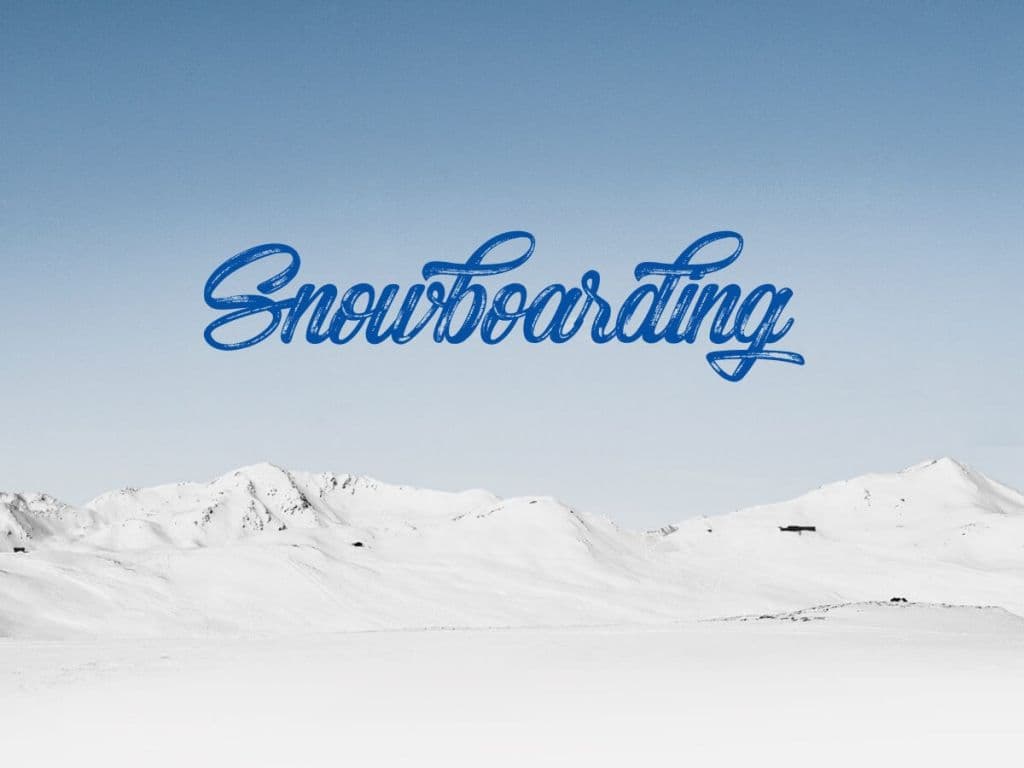
This curly stroked, handwritten brush font has a unique and dynamic personality. Snowboarding is modern and cool, and it can help you make your message pop and matter.
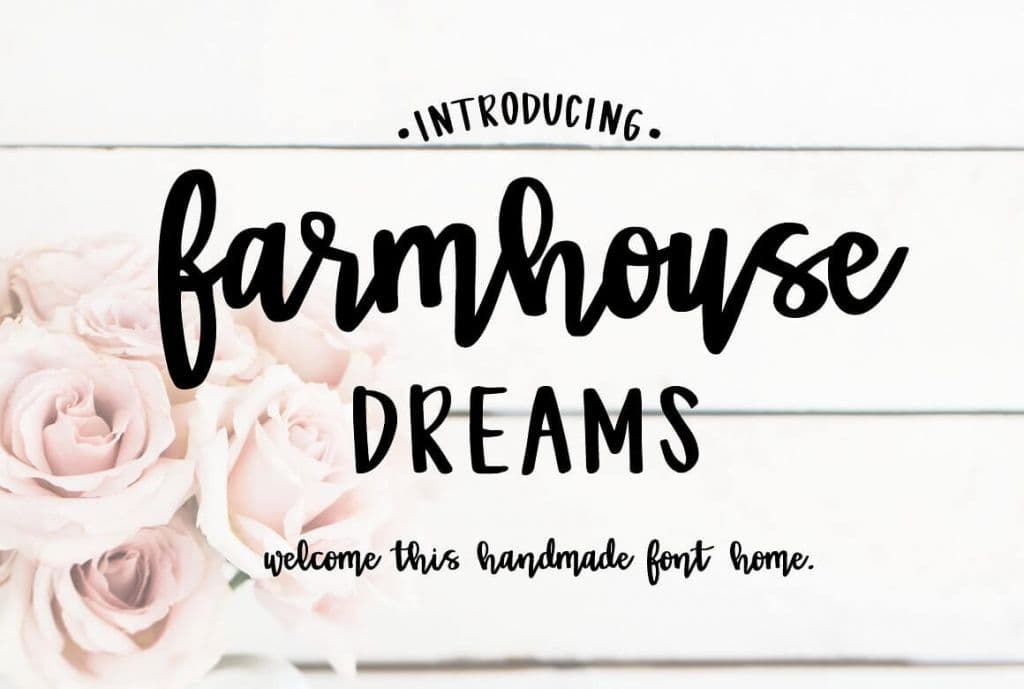
This is a beautiful hand-lettered brush font that can successfully add warmth and friendliness to your marketing materials. It was inspired by the designer's love for hand-lettering, southern charm, and her dream to one day own a farmhouse.
Its uneven lettering size and spontaneous strokes imitate real handwriting and build a cozy, familiar atmosphere.
This font comes as a duo pack with both lowercase and uppercase versions. You can play with both of them to create a timeless feel.
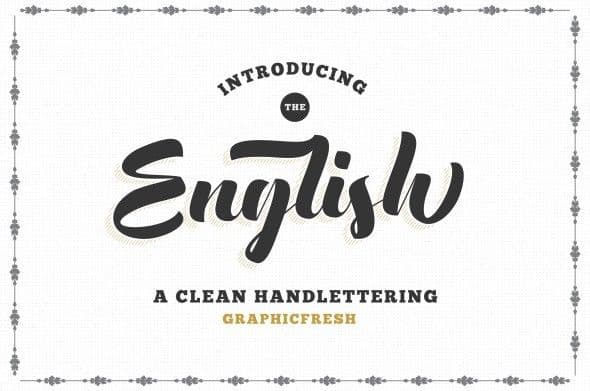
This clean hand lettering font will add a vintage touch to your advertising materials. The pack comes with a hand-lettering font and a clean uppercase one that completes each other. You can use it for outstanding headings or for your logo.
Either way, it will convey a sense of distinctiveness.
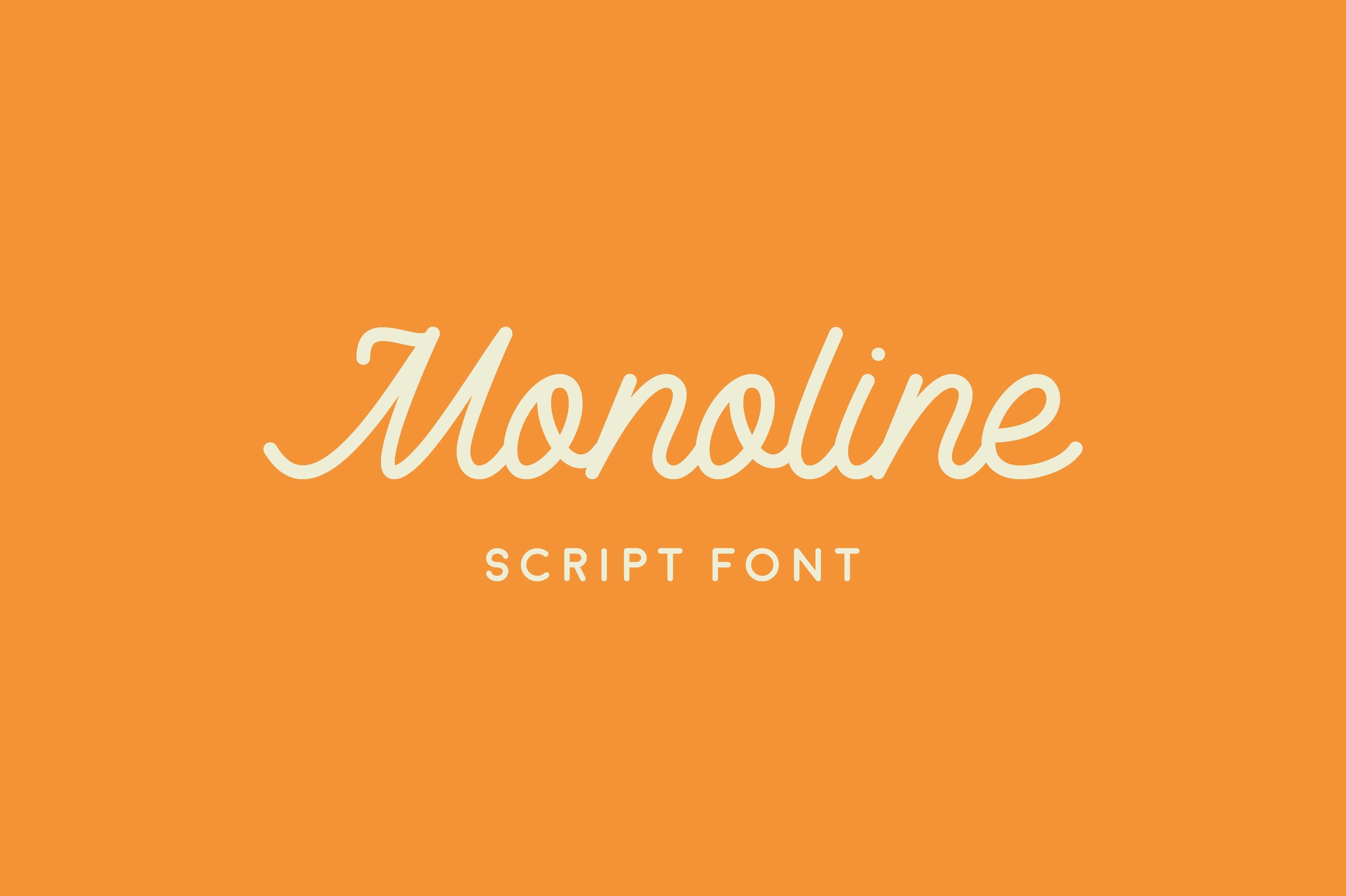
Each of Castellia's letters has been crafted to convey friendliness and positivity. With a moderate brush width and an elegant vibe, this font is great for weddings, anniversaries, women's, and children's brands.
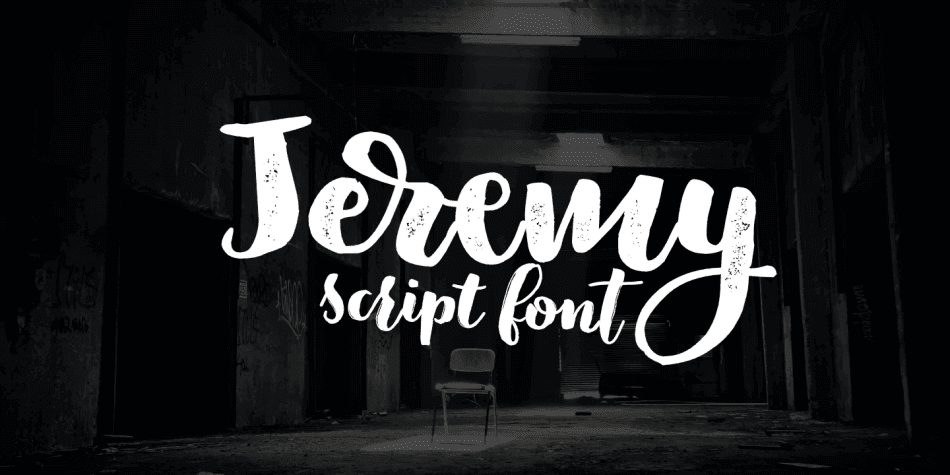
Jeremy is a playful and modern handwritten brush script that enables you to create a positive and cheerful experience for your audience. Jeremy allows multiple ways to build your message, as every lowercase comes in three variations.
The thick brush lettering ensures your text will get noticed. Though handwritten, it is exceptionally legible, and it's perfect for headlines or as a banner font.
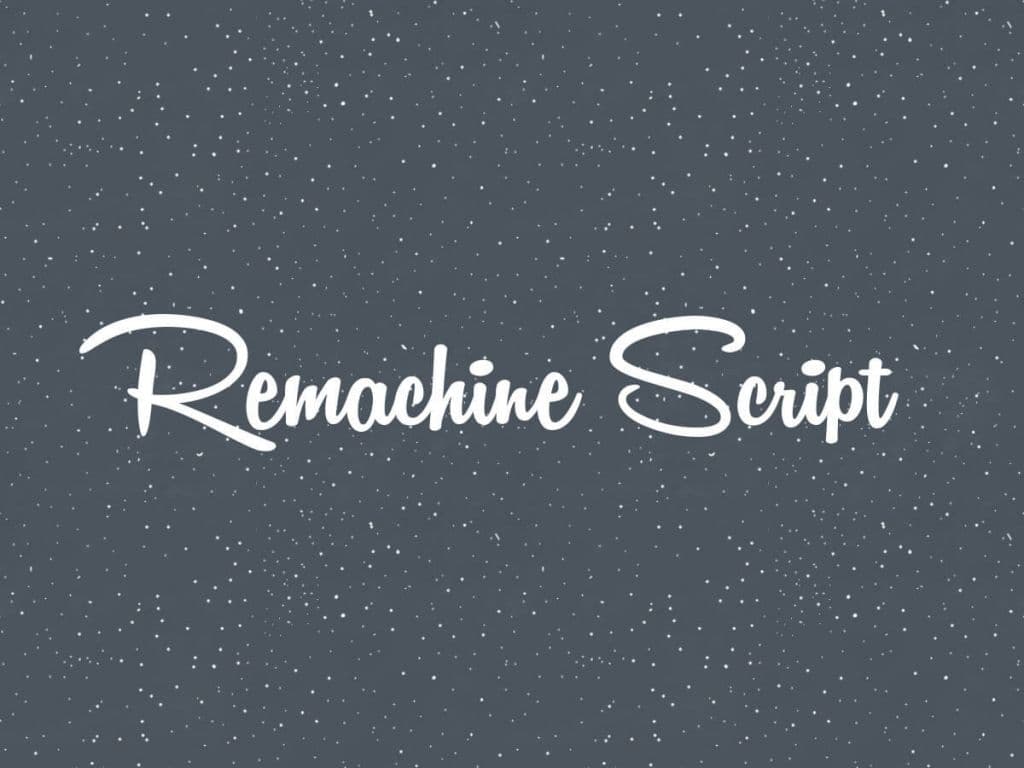
This upright script is perfectly readable for both online and offline media. It is neat and clear and pops. The superbly drawn uppercases will grab anyone's attention and ensure your message gets read.
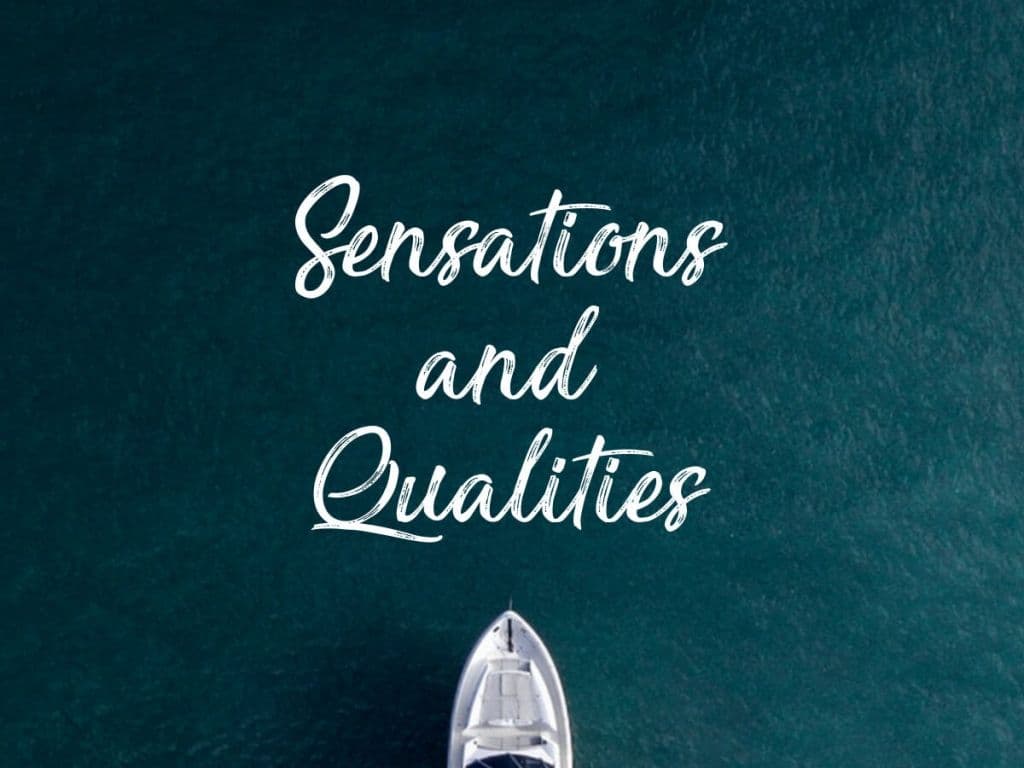
This simple and clear hand lettering font will enliven any design. With fluid strokes and elegant uppercases, Sensations & Qualities will help you stylishly deliver your message, and you can rest assured you'll make a great impression.
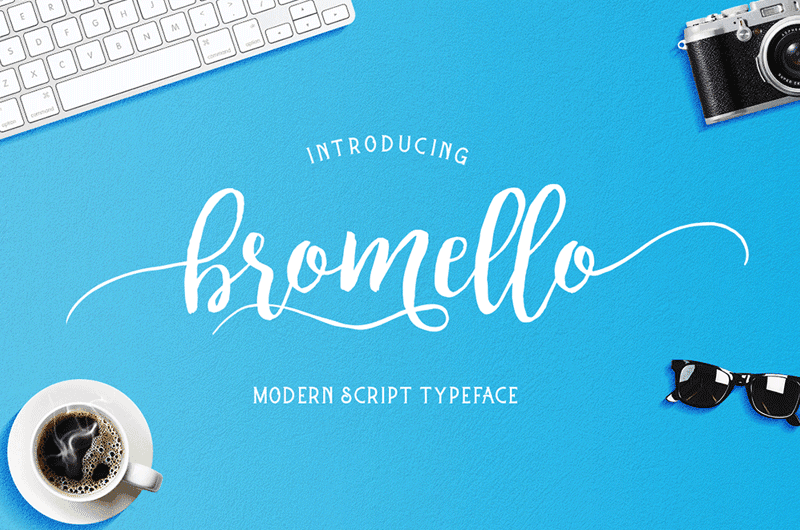
Bromello's effervescent personality will help you create outstanding designs and successfully communicate your brand's message.
With modern and playful letters, this font is ideally suited for children's and women's brands.
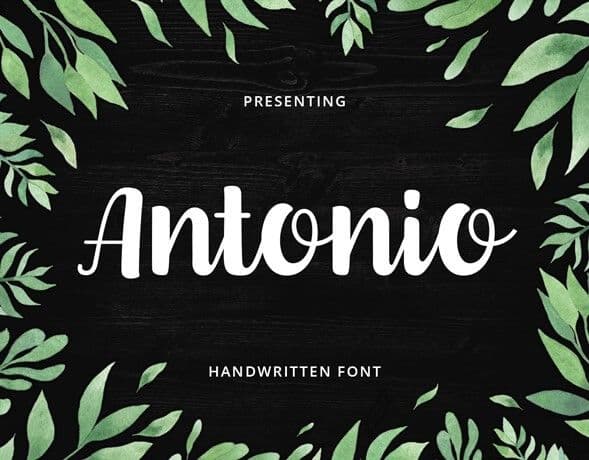
This bold handwritten font works great for headlines and logos. The thick brush is a sure win when it comes to attention-grabbing, while the playful swirls deliver a positive experience.
This classy calligraphy font is excellent for luxury brands, wedding invitations, and other special anniversaries.
It is reminiscent of that 19th-century aristocratic life, thanks to its thin and swirly uppercases, and it can provide your designs with a touch of class too.
The Mozart font offers extra flexibility and creativity opportunities, as every letter has 20 or even 30 versions.
Inspired by Victorian calligraphy, the Rochester font is perfect for when you want to add a touch of class to your brand's marketing materials. Upright, elegant and not overly sophisticated, Rochester can help you step up your game.
Champagne is a simple and beautiful font that can successfully be used for a wide variety of messages and brands. Neat and calligraphic, Champagne will create a classy atmosphere on any design.
Berkshire Swash invites the reader into the atmosphere of the exclusive world of the early 20th century high-class. Upright, dignified and sumptuous, this font is all about elegance.
Inspired by the late 18th-century Enlightenment movement, this font is easily legible and will provide your designs with an extra classy character. This font is clearly formal, suited for luxury brands or high-class events.